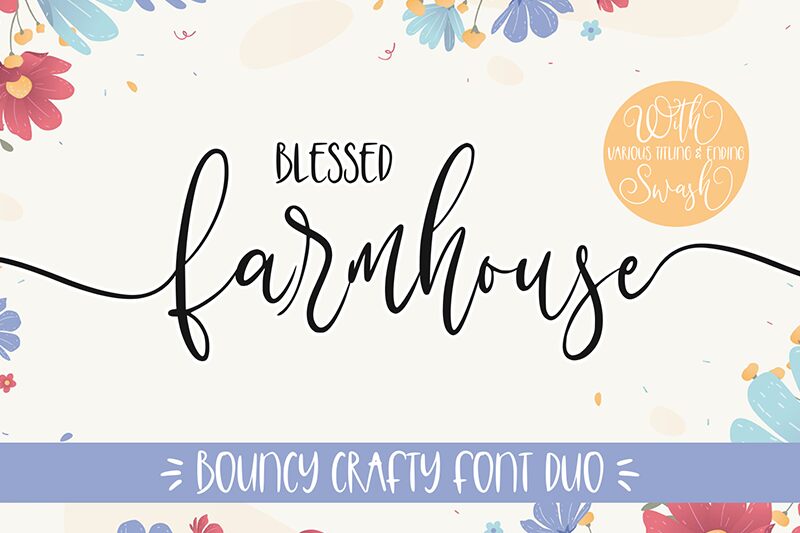
Introducing Blessed Farmhouse A - a calligraphic font designed by Panggah Laksono at Abo Daniel Studio. This thin and condensed font is perfect for adding a personal touch to your projects. It's ideal for modern logos, greeting cards, wedding invitations, and other creative endeavors. Blessed Farmhouse A will help you make your designs truly unique!